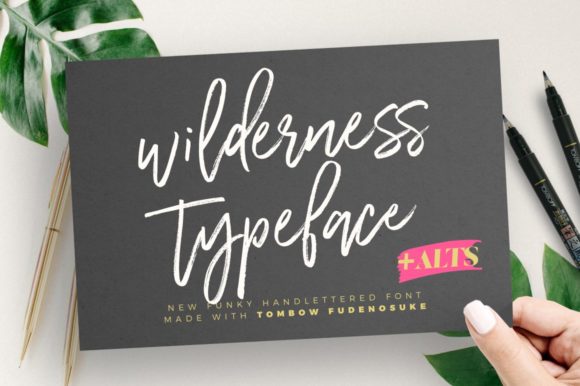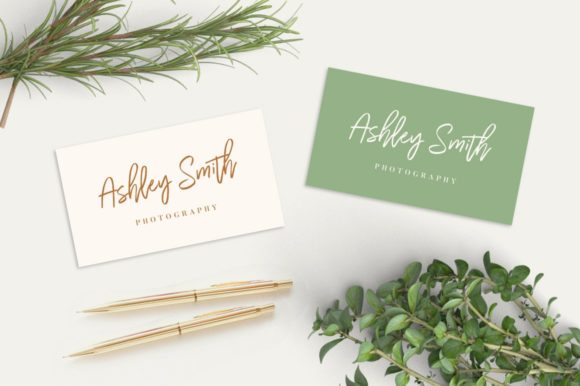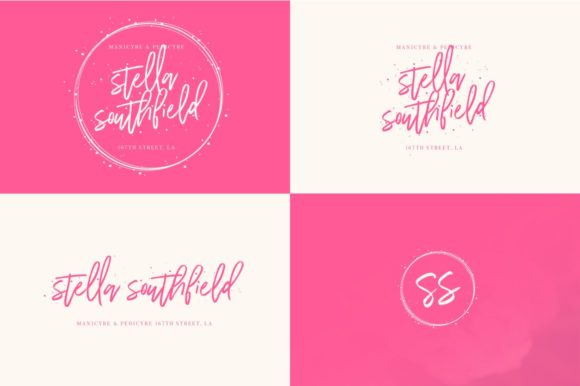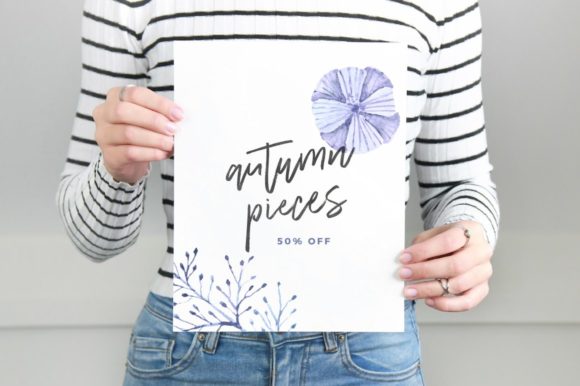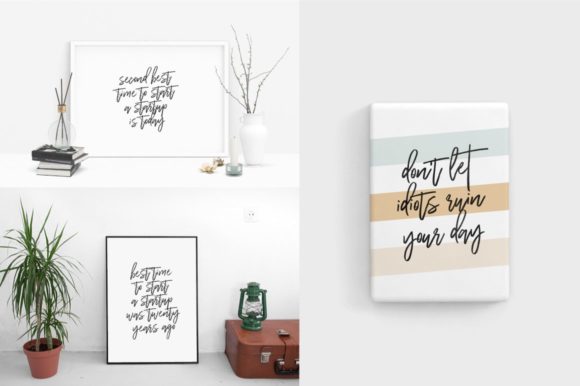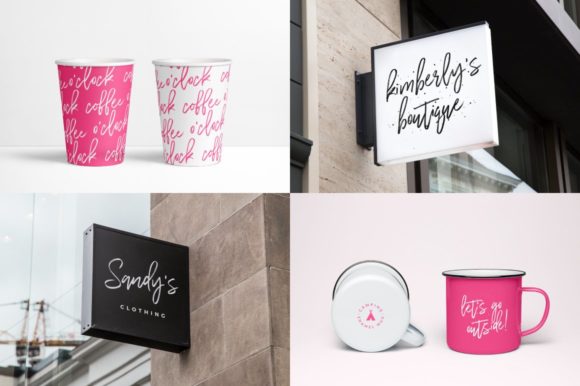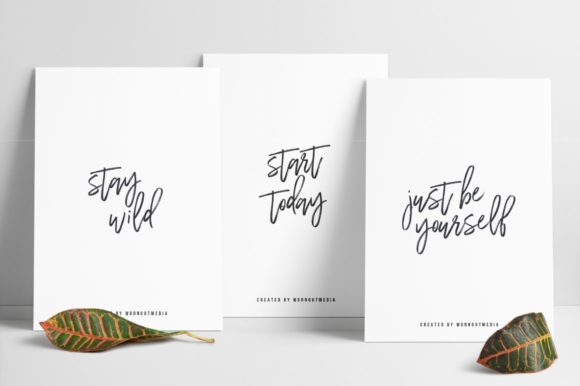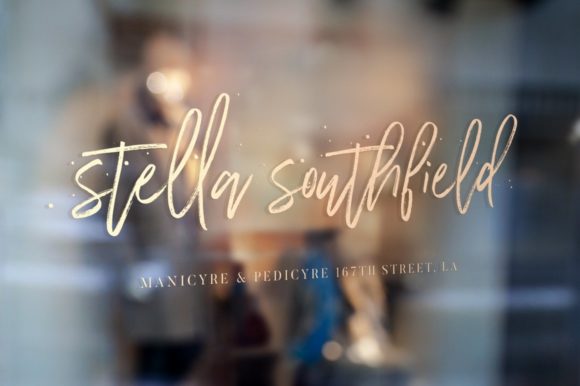
HomeScript FontsWilderness Font Script Fonts Wilderness Font FacebookXPinterestWhatsApp Wilderness Font Poster 2 Wilderness Font Poster 3 Wilderness Font Poster 4 Wilderness Font Poster 5 Wilderness Font Poster 6 Wilderness Font Poster 7 Wilderness Font Poster 8 About Wilderness Font Wilderness is a funky and wild script font that radiates life. Fall in love with its dynamic style! DOWNLOAD ON CREATIVE FABRICAThis font is sold and delivered by Creative Fabrica. Font Canyon may earn a commission if you buy through this link. People also explored Rain Font Coding Sign Font Simple Room Font Sweet Master Font Brahmone Font Moreya Font Casual Slab Serif JNL Font Cafechic Font Holy Night Font 278 0 TagsWilderness Font Previous articleBeautiful Bloom FontNext articleRiverside Avenue Font LEAVE A REPLY Cancel reply Comment: Please enter your comment! Name:* Please enter your name here Email:* You have entered an incorrect email address! Please enter your email address here Website: Save my name, email, and website in this browser for the next time I comment. Personal Use Free Zero Panzer Personal Use Free Read more about this font Zeshane Personal Use Free Read more about this font Stone Garden Personal Use Free Read more about this font Jilliant Personal Use Free Read more about this font BLOG Best Fonts for YouTube Videos: Make Your Thumbnails Stand Out Best Fonts for YouTube Videos: Make Your Thumbnails Stand Out Choosing the right font can make a massive difference in how your YouTube videos perform.... Top 7 Google Fonts Alternatives for Faster and Privacy-Friendly Web Design (2025) Modern Sans-Serif Fonts That Brands Love in 2025 Using Fonts in Digital Marketing: Tips to Strengthen Your Brand Identity